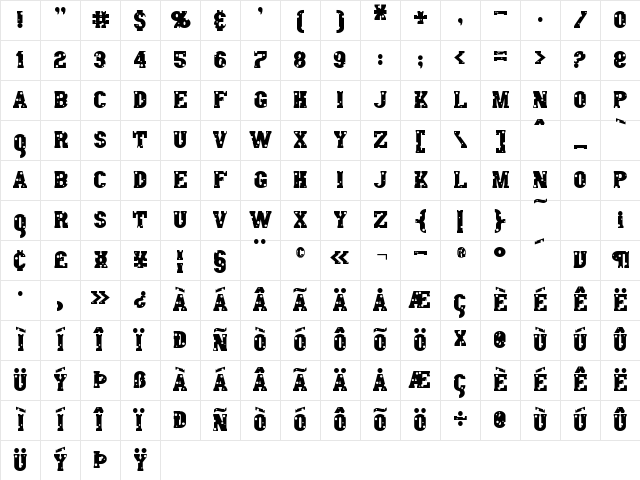
Angel Arms Regular Free Font
Angel Arms Regular
Foundry: Neale Davidson
Designer: Neale Davidson
Angel Arms Family
Design Context for Angel Arms
Angel Arms is a composed and adaptable typeface that performs quietly and consistently across a wide range of design contexts.